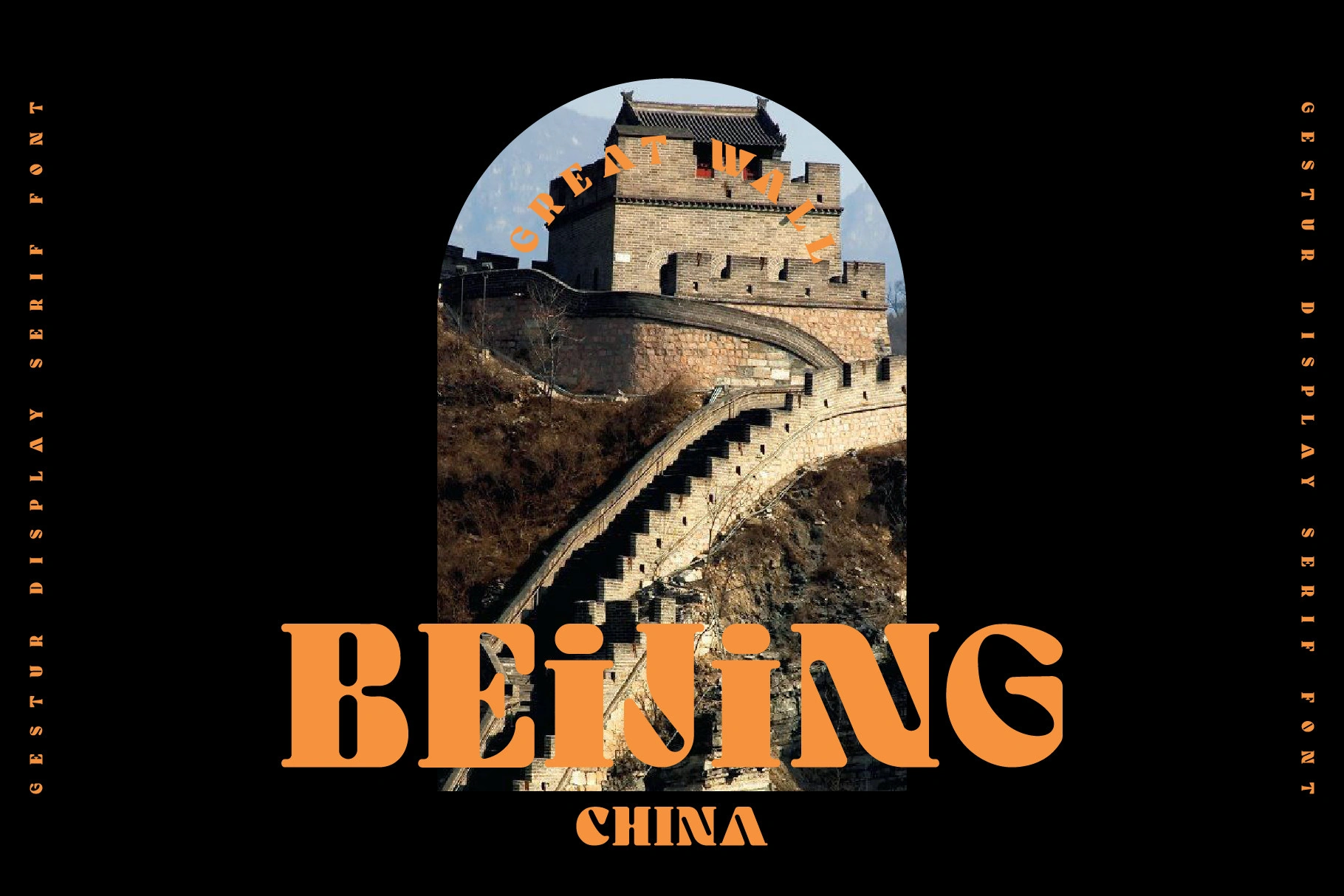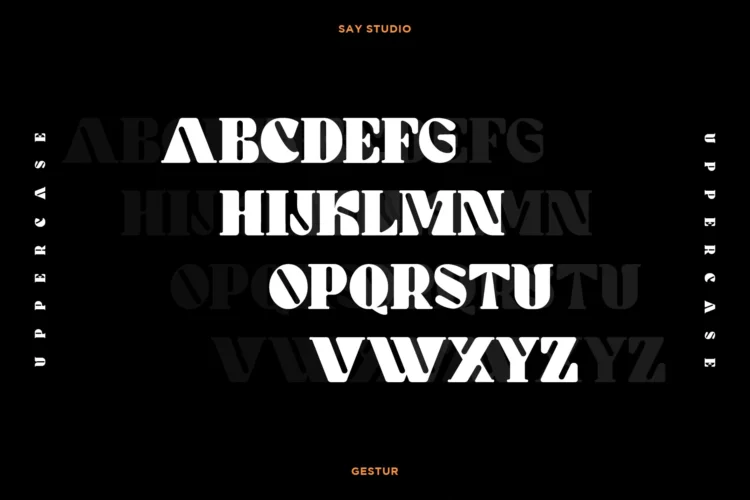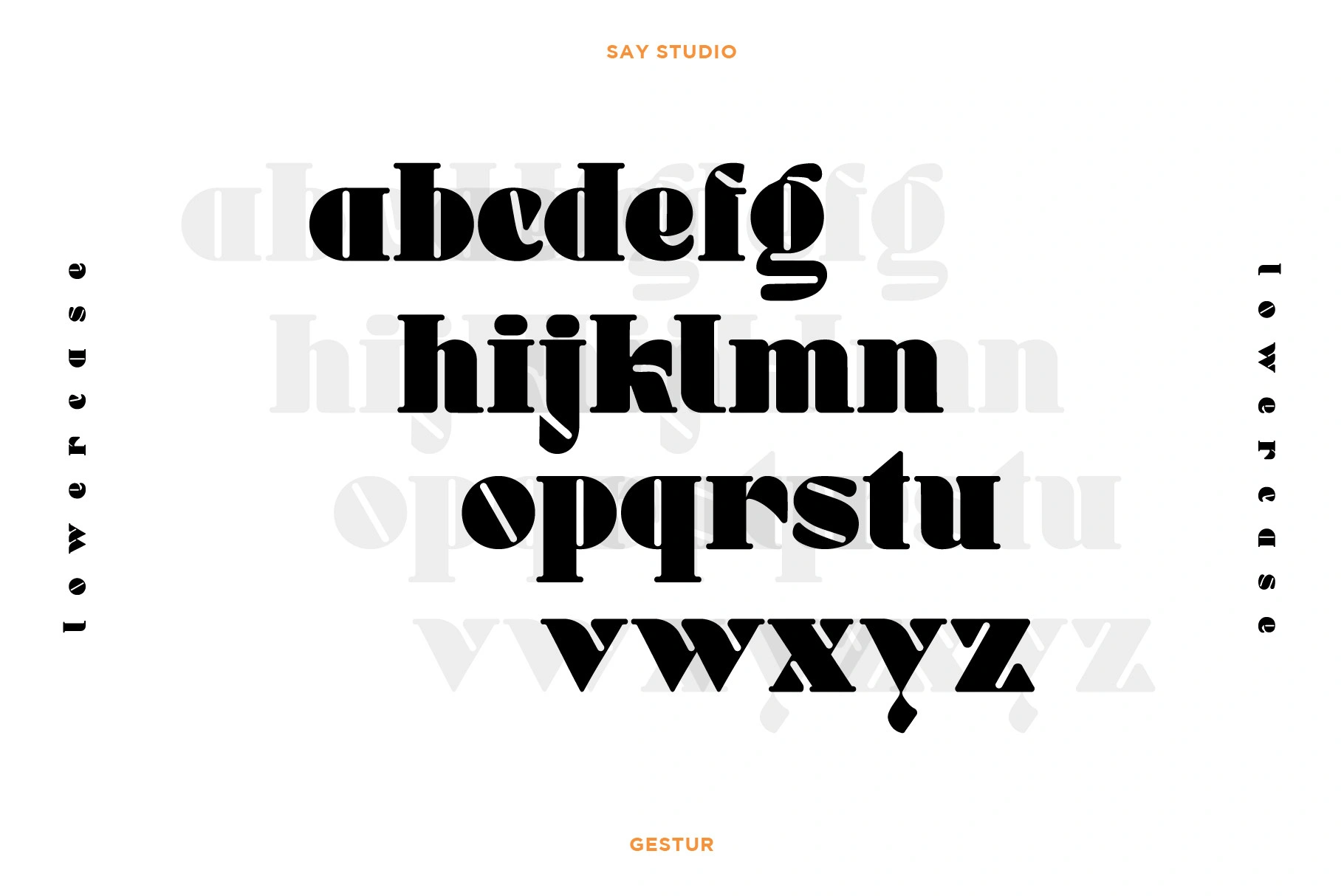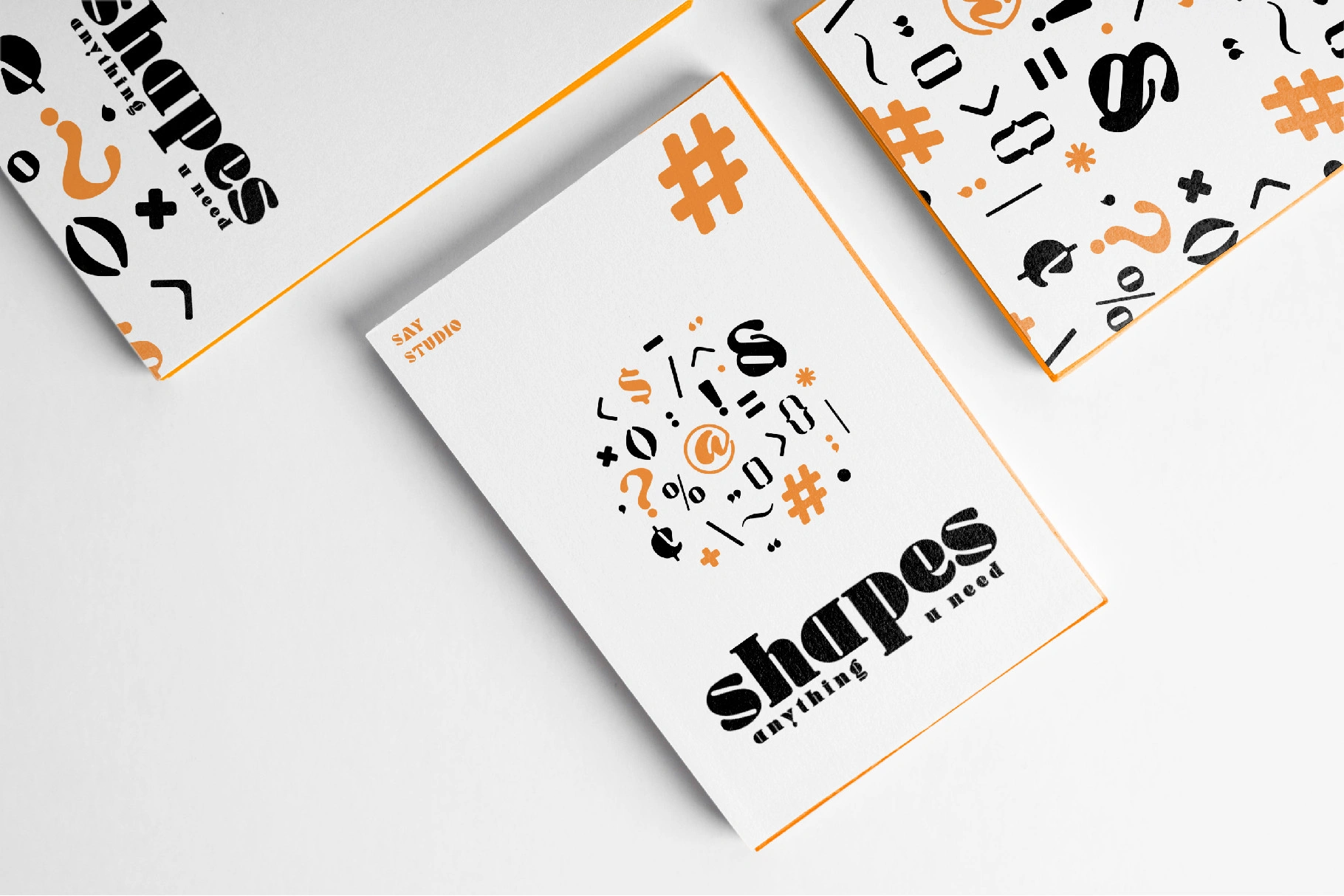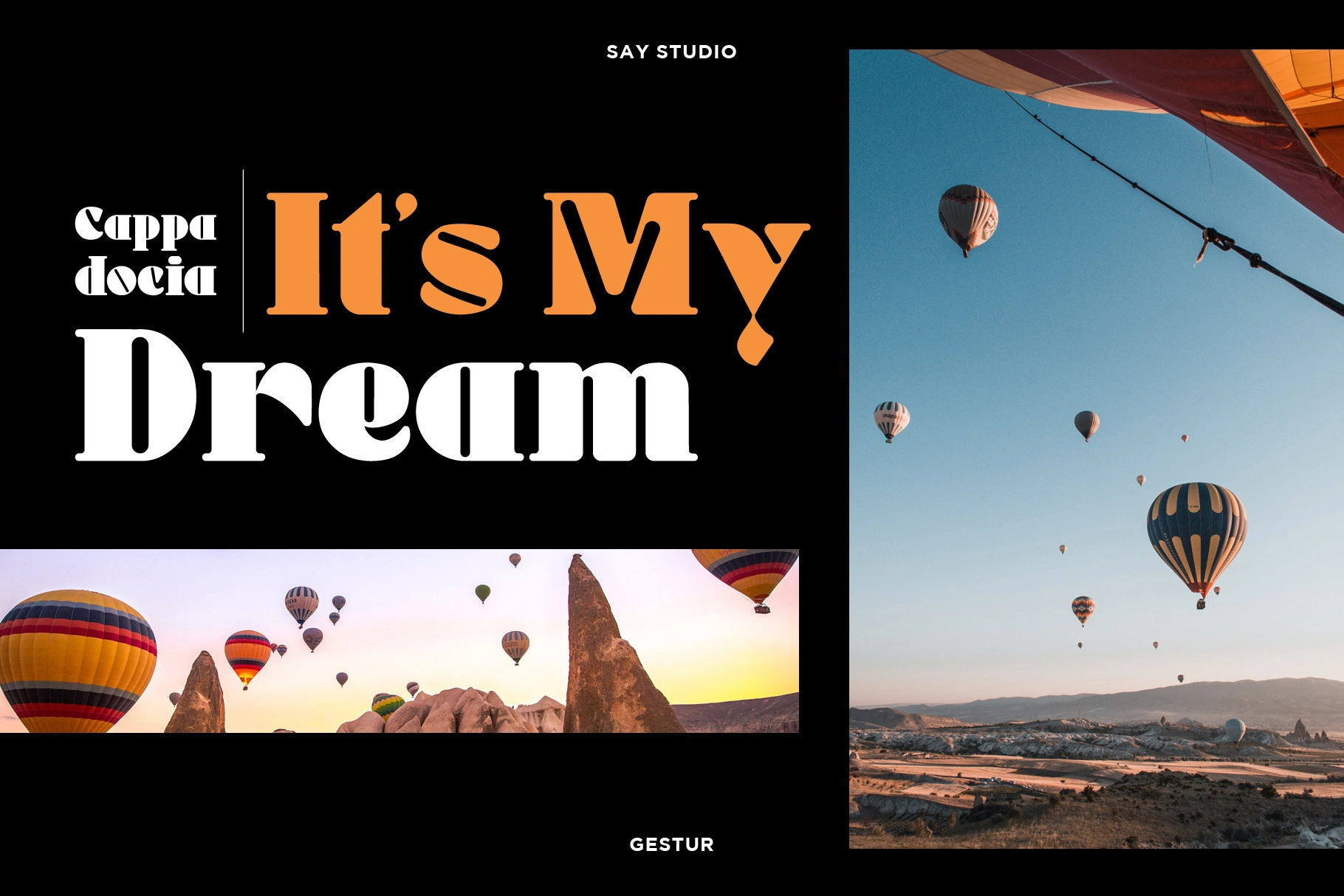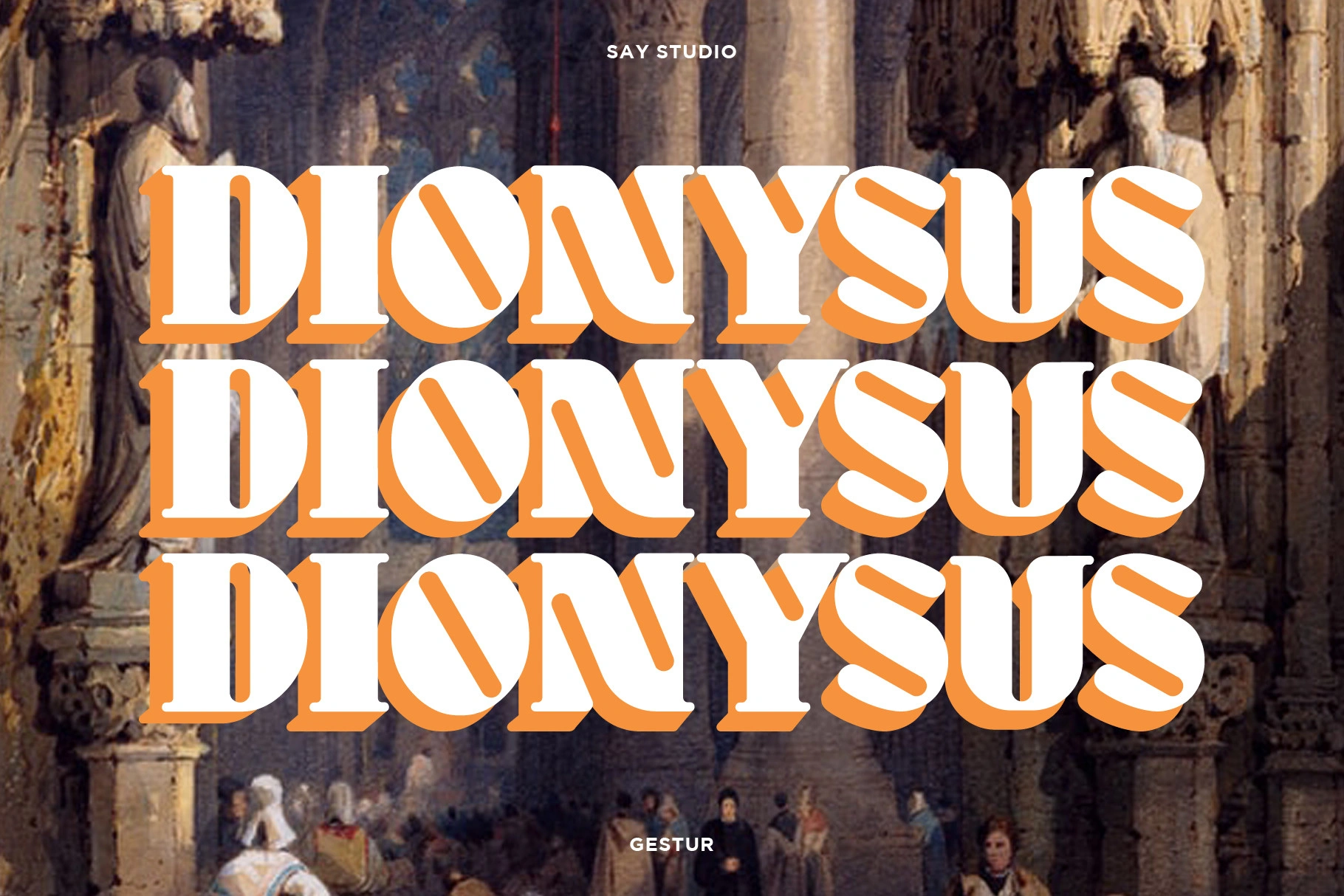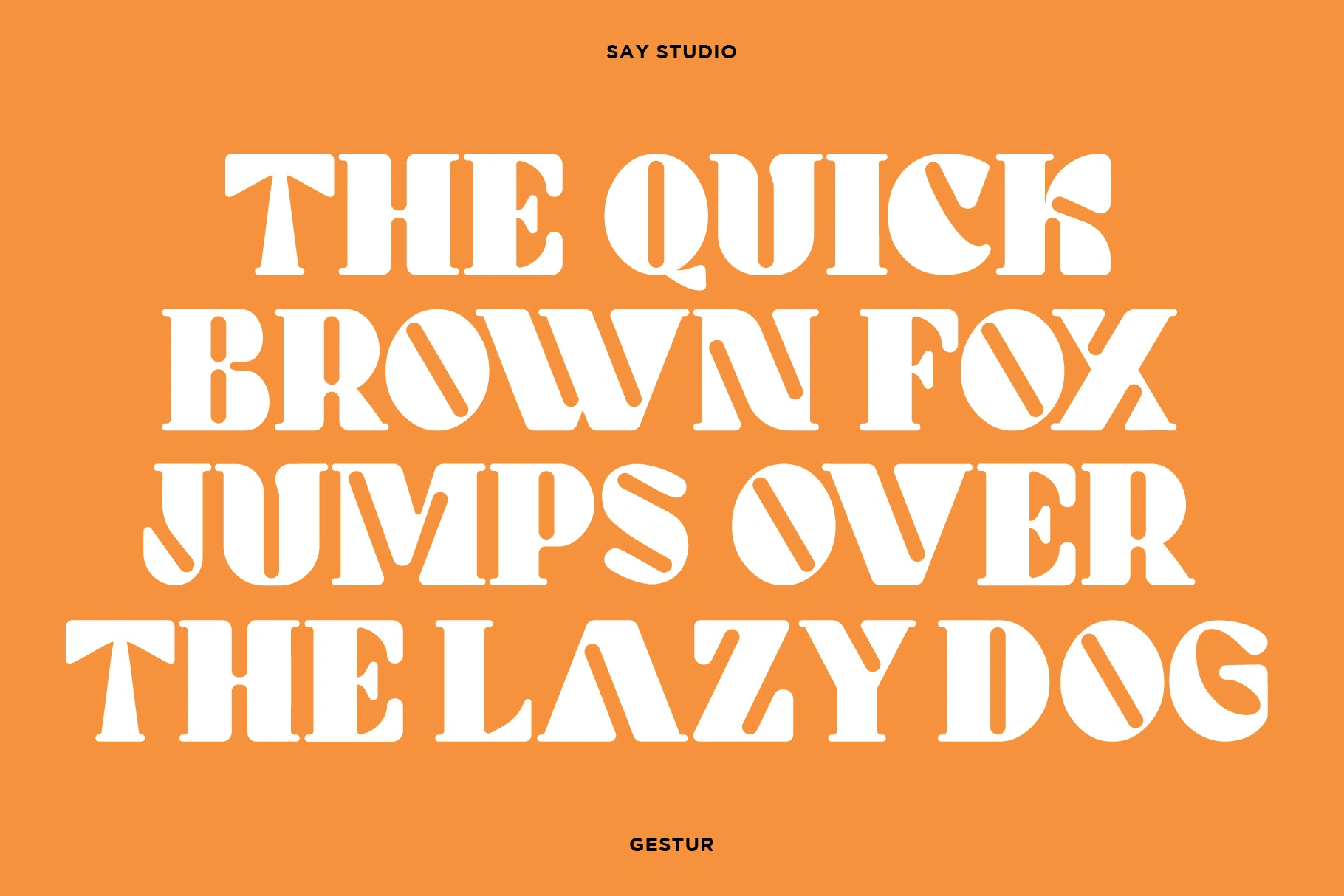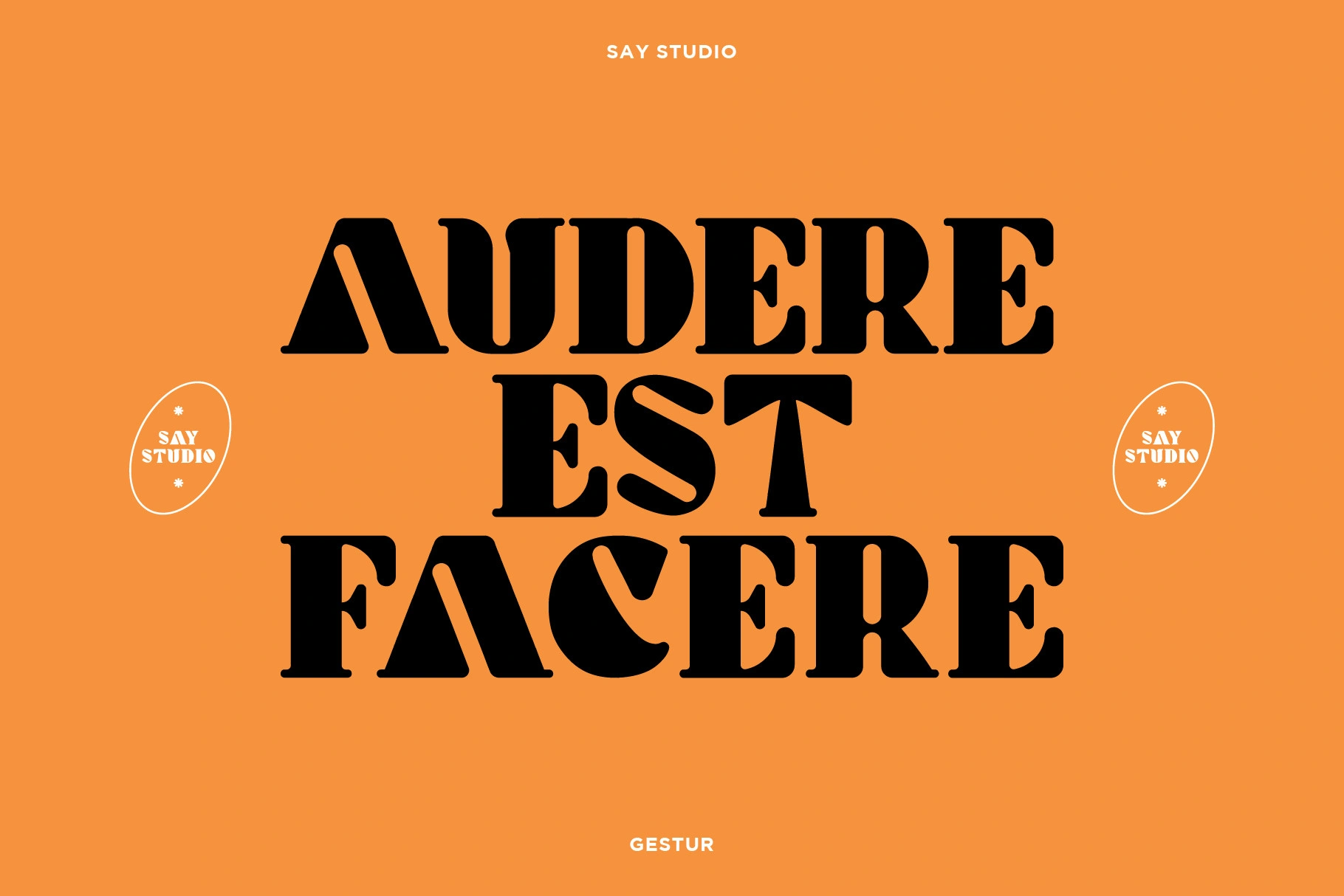
Gestur
Gestur is a display font It’s fun and groovy with a bold personality This font to give your logo,business card and another project to a unique vintage look.